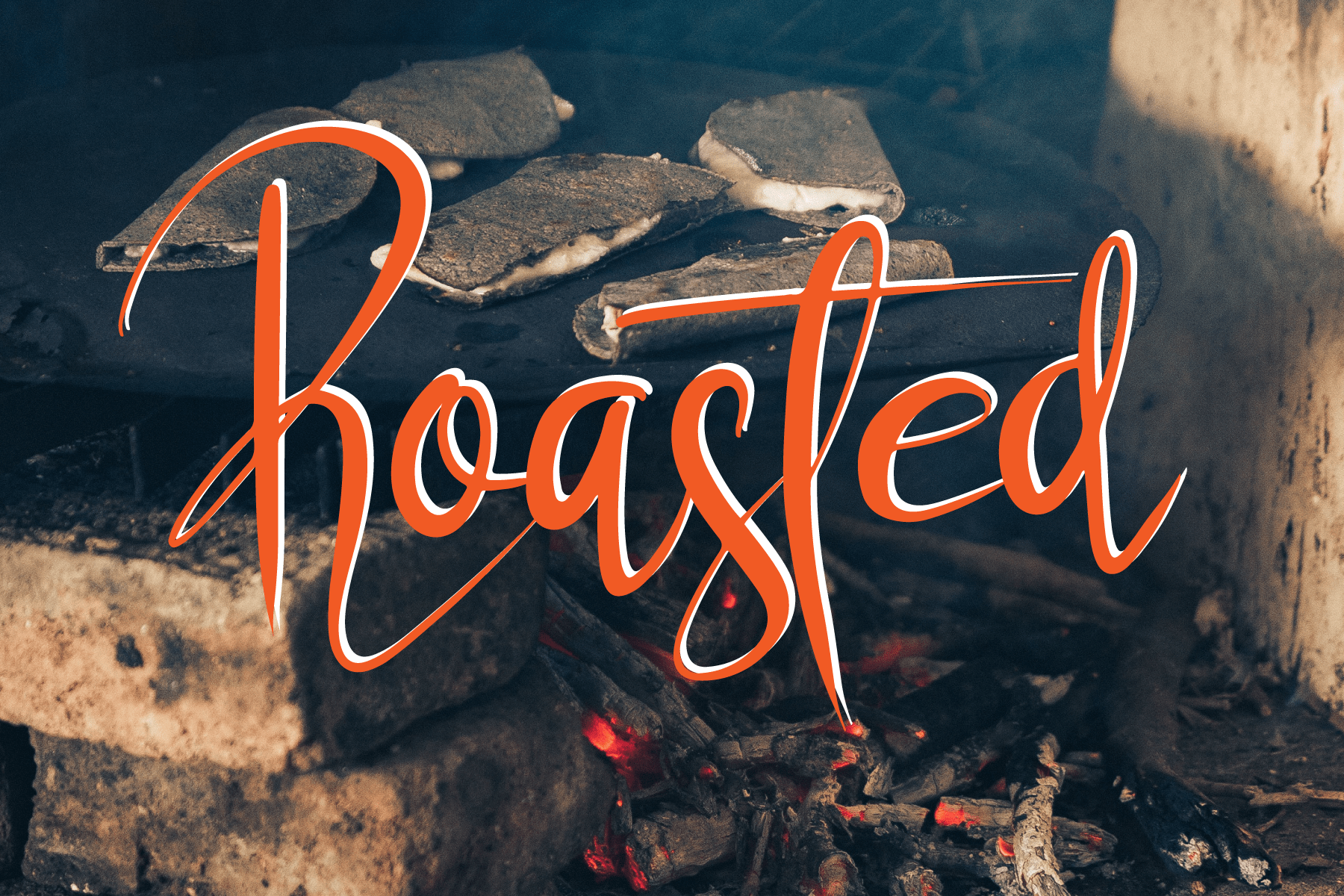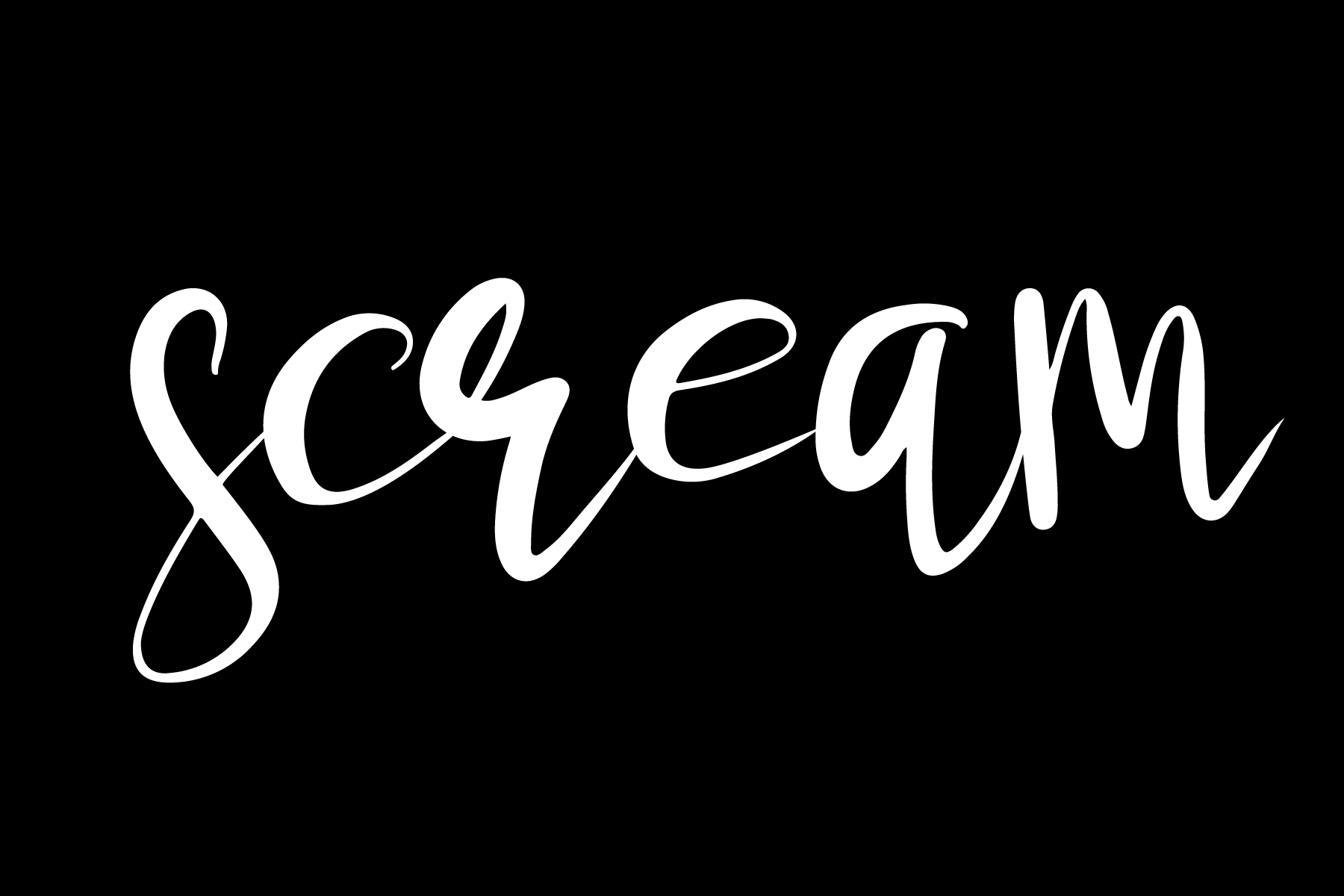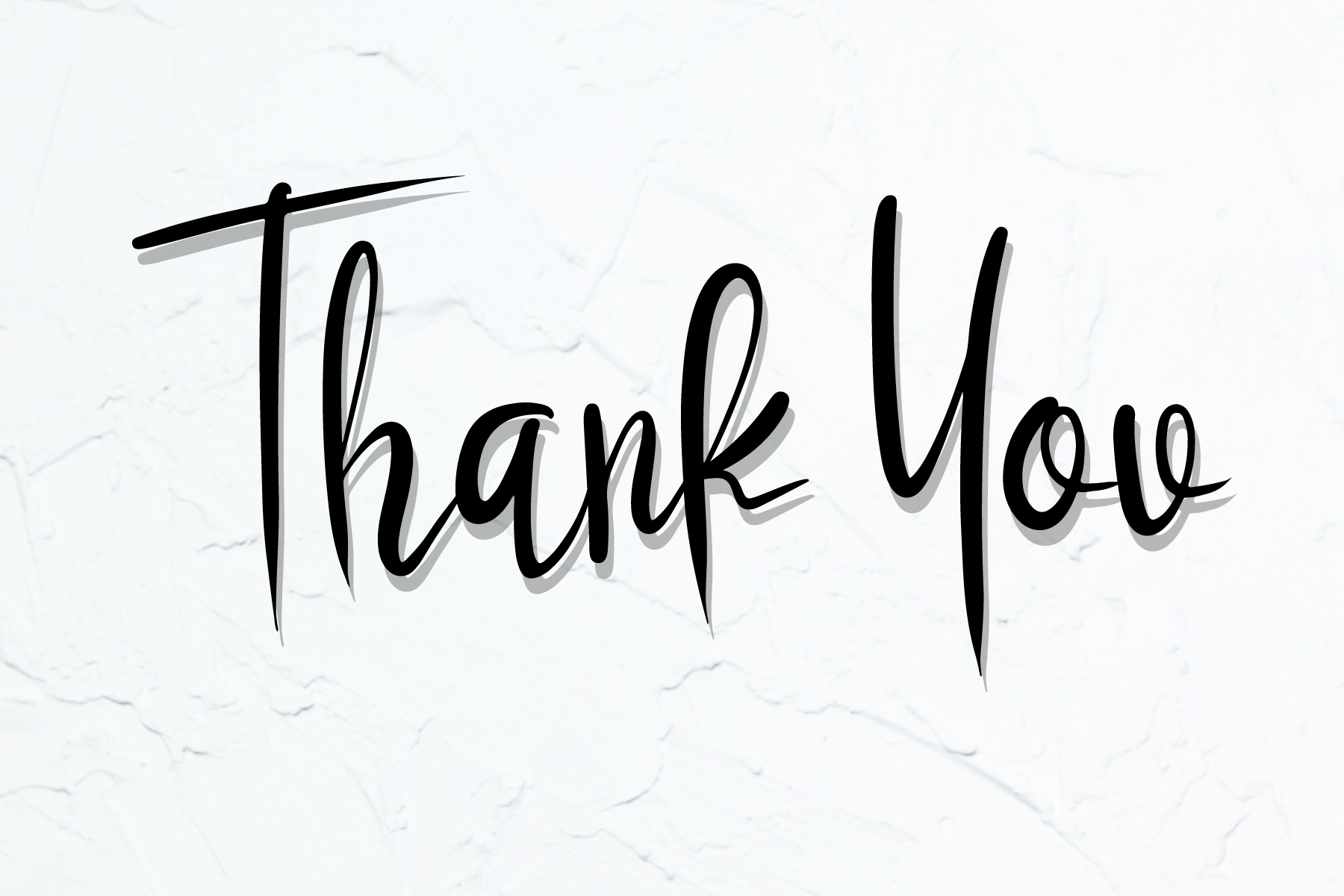
Blasters Script Font
This is a beautiful and refined script font. It has a classy, elegant and modern look that can be used for logos, branding, invitations, stationery, wedding designs, social media posts, and much more!